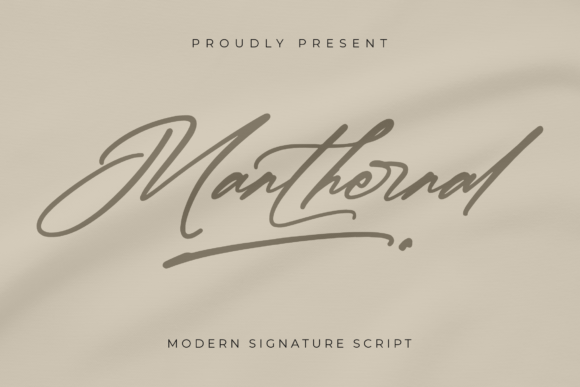
**Manthernal Font: The Epitome of Modern Elegance**
Step into the realm of Manthernal, a script font that embodies the very essence of contemporary grace. With its sweeping strokes and captivating curves, Manthernal transports you to a world of boundless creativity, where imaginations flourish and ideas take flight. Let Manthernal be your guiding light as you embark on a typographic journey like no other.
**A Symphony of Style and Sophistication**
Manthernal is more than just a font; it's an artistic masterpiece that elevates your designs with a touch of understated luxury. Its refined lines and elegant flourishes lend an air of sophistication to your projects, whether you're crafting logos, branding materials, or any other visual masterpiece. Manthernal is the perfect font for those who seek to make a lasting impression, leaving your audience captivated by your impeccable taste.
**The Perfect Harmony for Your Creative Vision**
With Manthernal, the possibilities are infinite. This versatile font effortlessly adapts to a myriad of design concepts, from the playful and whimsical to the sleek and minimalist. Imagine your words dancing across the page, infused with the timeless charm of Manthernal. Whether you're designing logos, branding projects, homeware designs, product packaging, or any other creative endeavor, Manthernal will seamlessly blend with your vision, enhancing it with a touch of timeless elegance.
**A Font That Speaks to the Soul**
Manthernal is not merely a collection of letters; it's an emotional journey that speaks directly to the heart. Its graceful strokes and delicate curves evoke a sense of nostalgia, while its modern aesthetic keeps your designs firmly rooted in the present. With Manthernal, you have the power to evoke emotions, create connections, and leave an indelible mark on your audience.
**Unleash Your Creativity with Manthernal**
Manthernal is the font that sets your imagination free, allowing you to explore uncharted creative territories. Its versatility knows no bounds, inspiring you to think outside the box and push the limits of your creativity. Whether you're a seasoned designer or just starting out, Manthernal is your gateway to a world of typographic wonders.
**Elevate Your Designs with Manthernal**
Experience the transformative power of Manthernal and elevate your designs to new heights. With its timeless appeal and endless possibilities, Manthernal is the perfect font for those who dare to dream big and leave a lasting legacy of creativity.